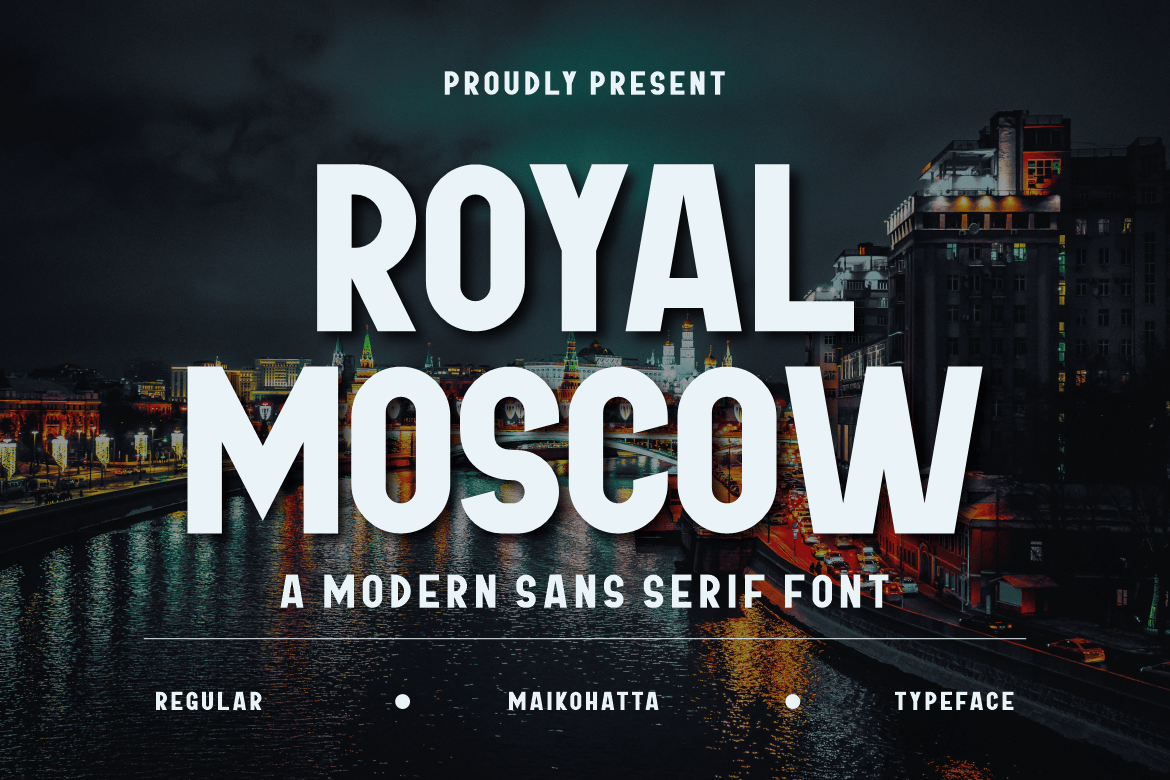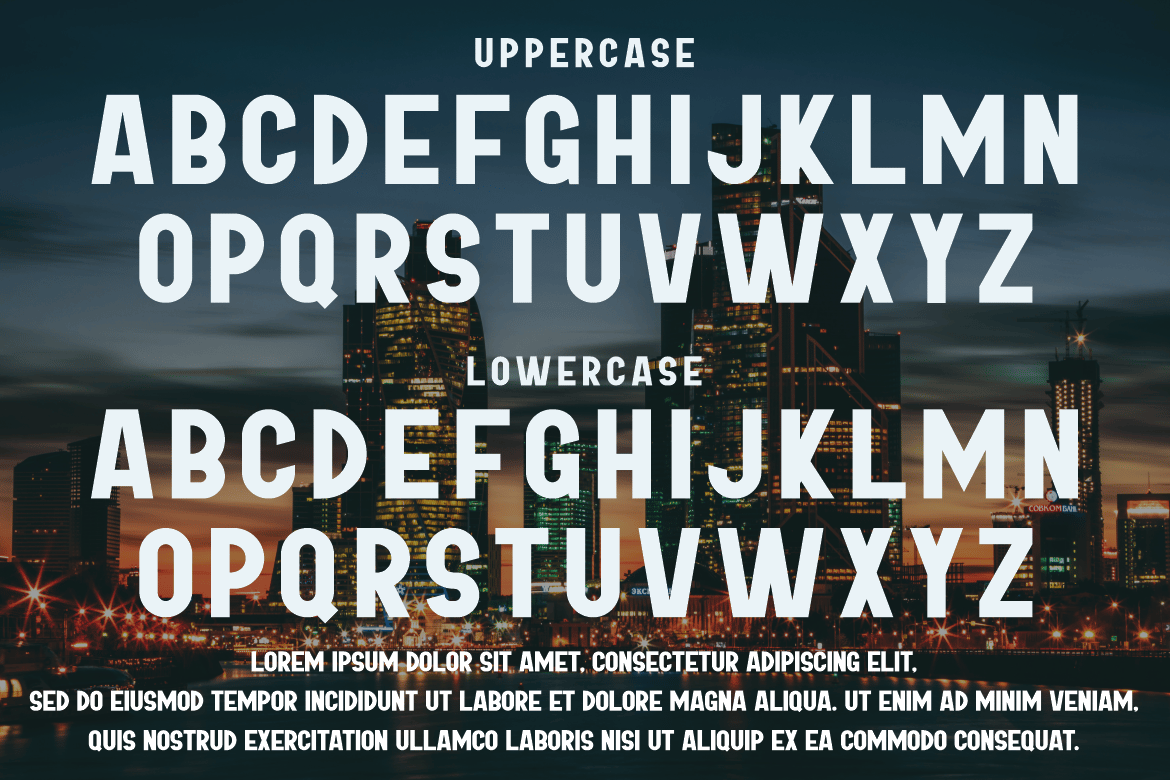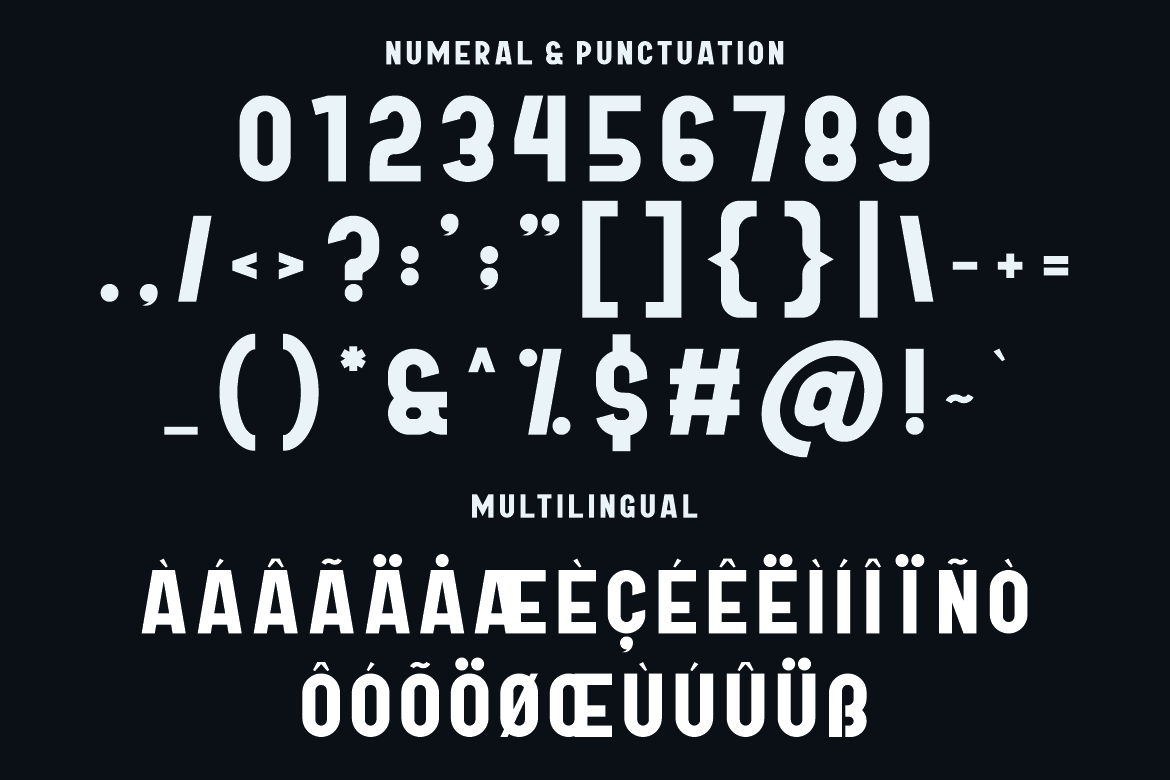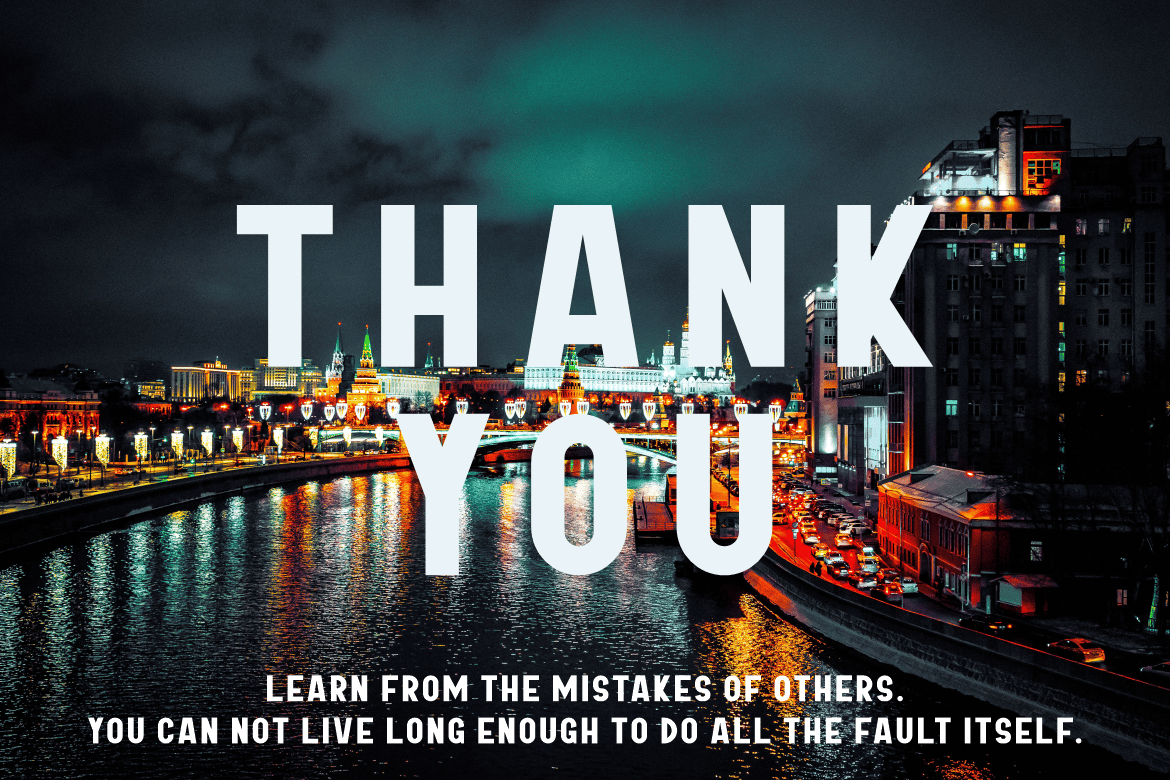
ROYAL MOSCOW FONT
Introducing our new product ROYAL MOSCOW FONT – Modern Font
ROYAL MOSCOW FONT – Modern Font is a bold and authentic display font. The font is suitable for any branding project like logo, template design, esport, and many more. outstanding in a wide range of contexts.